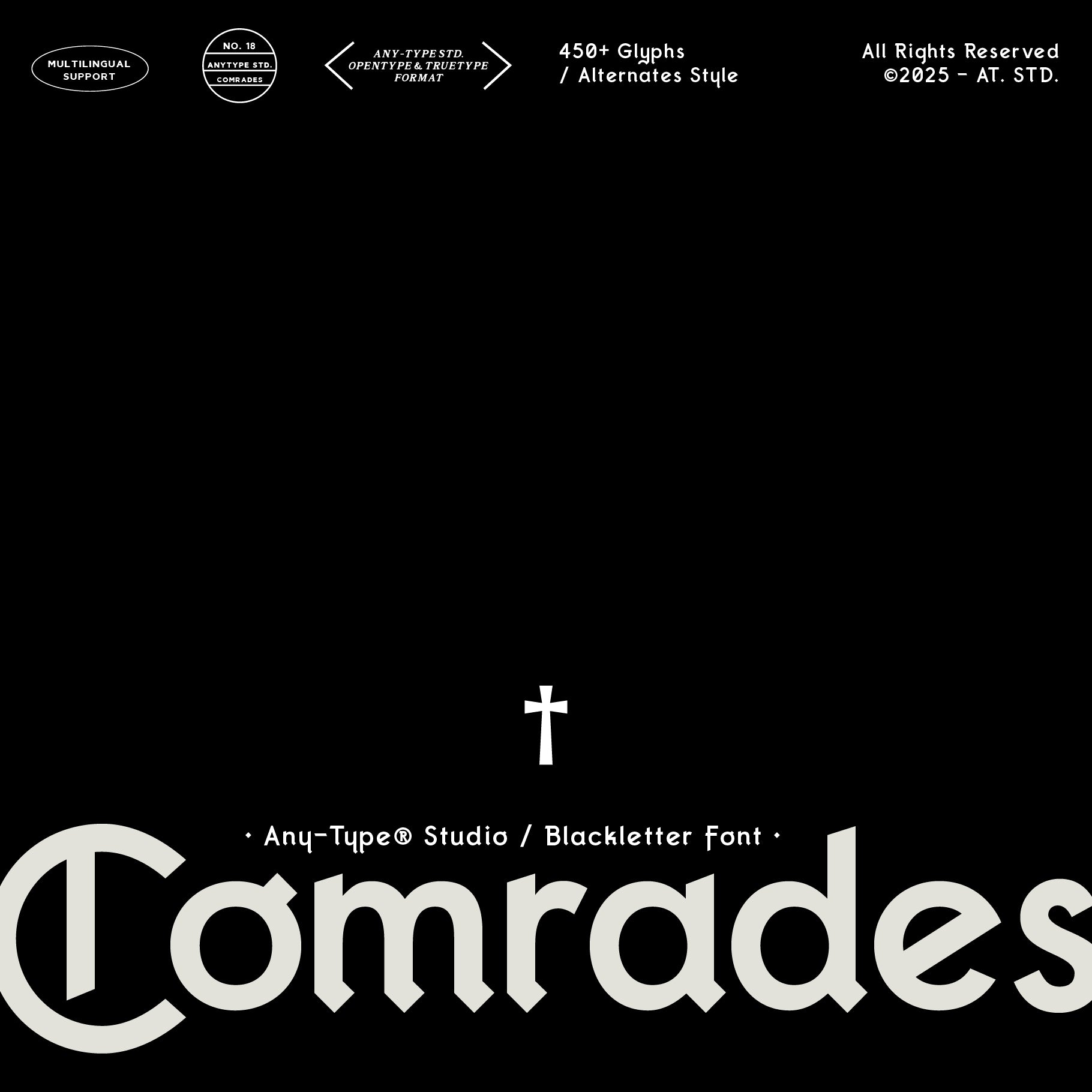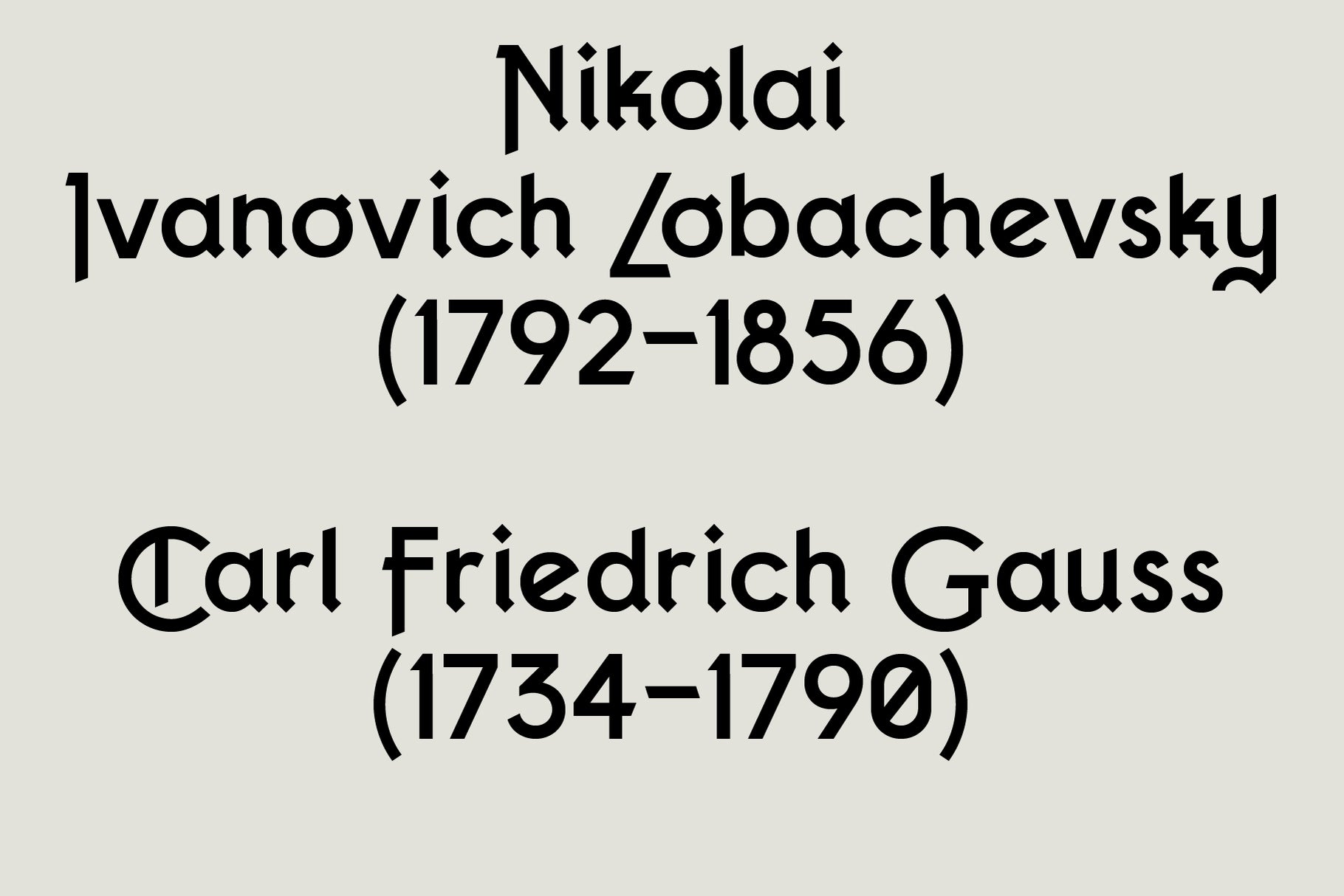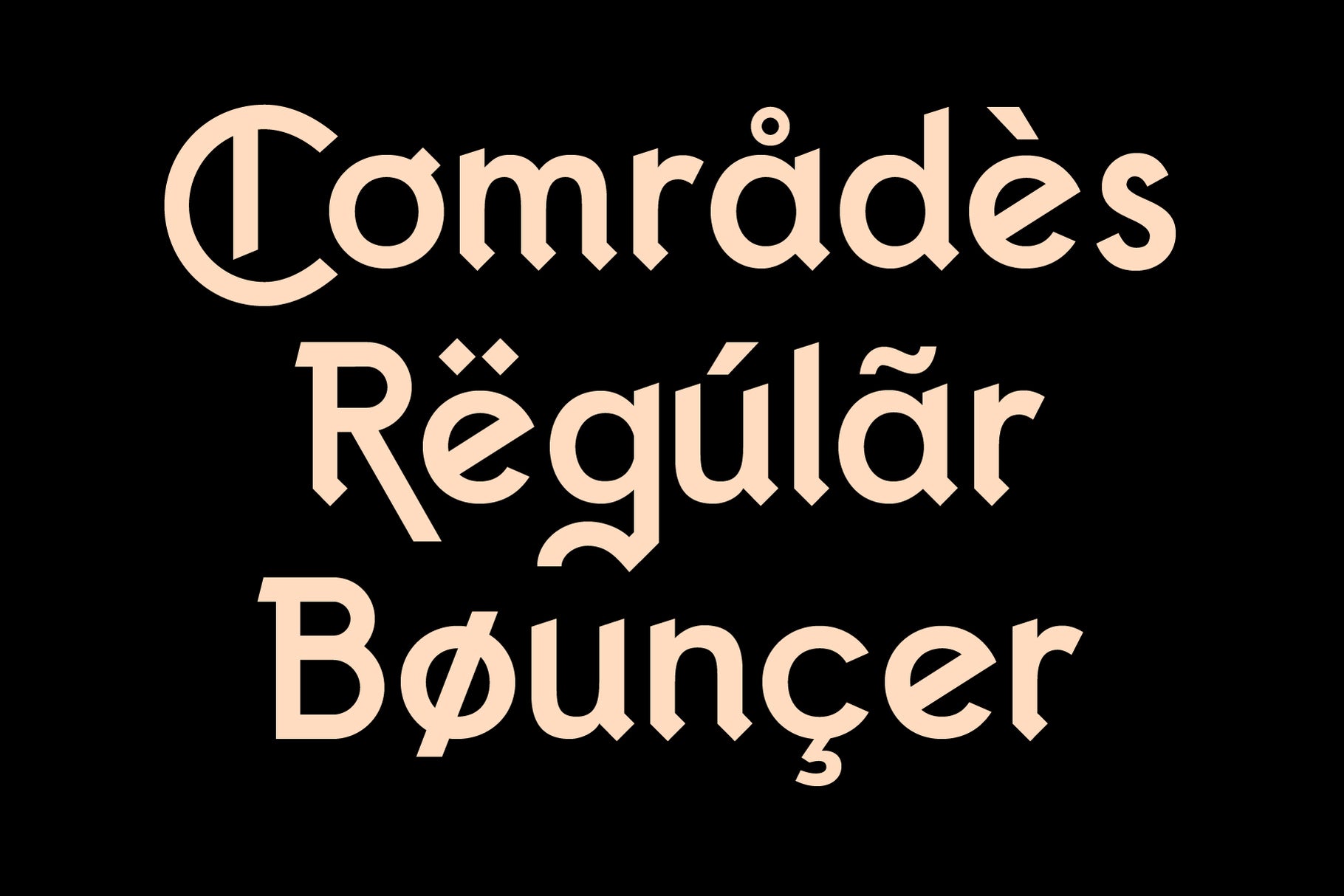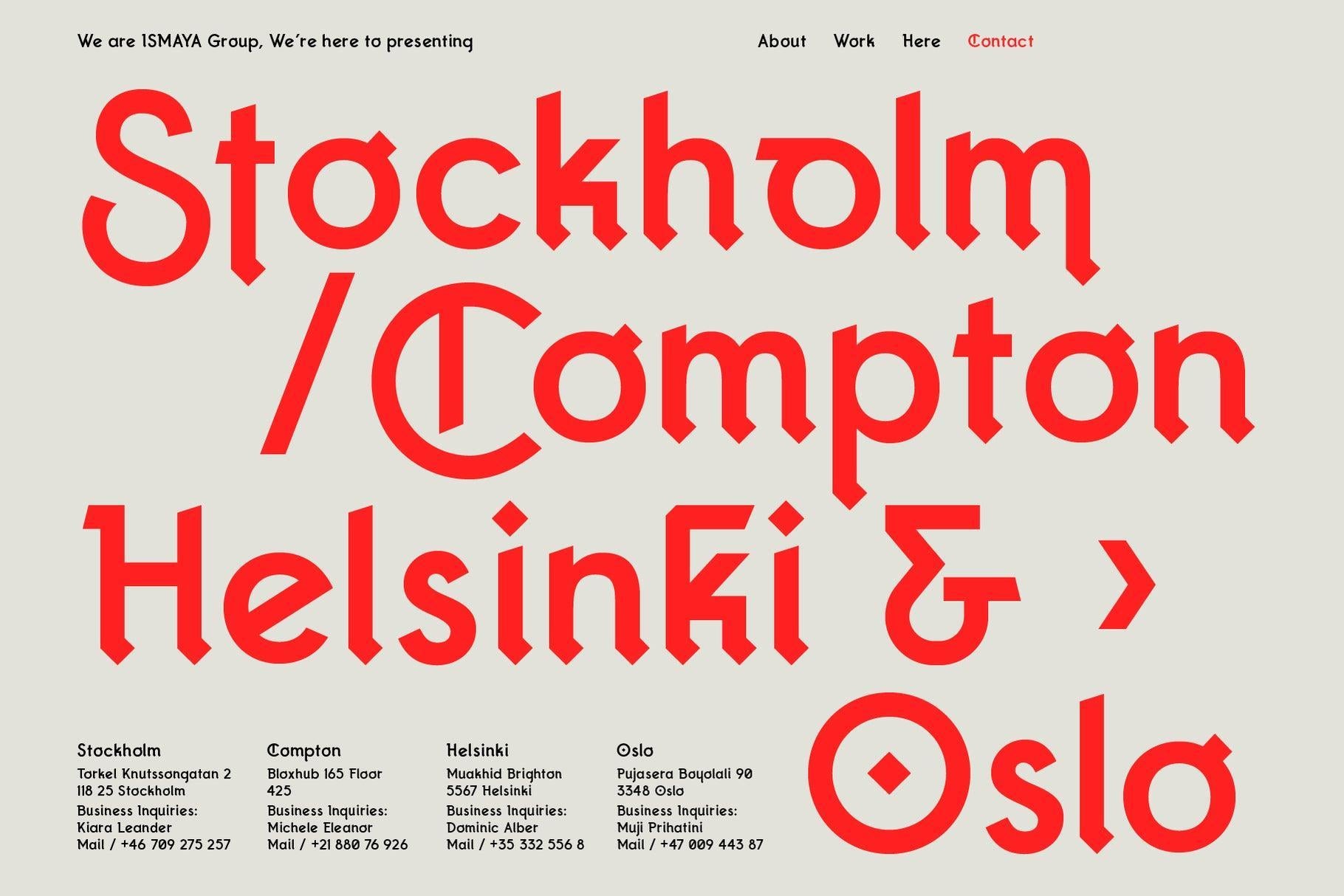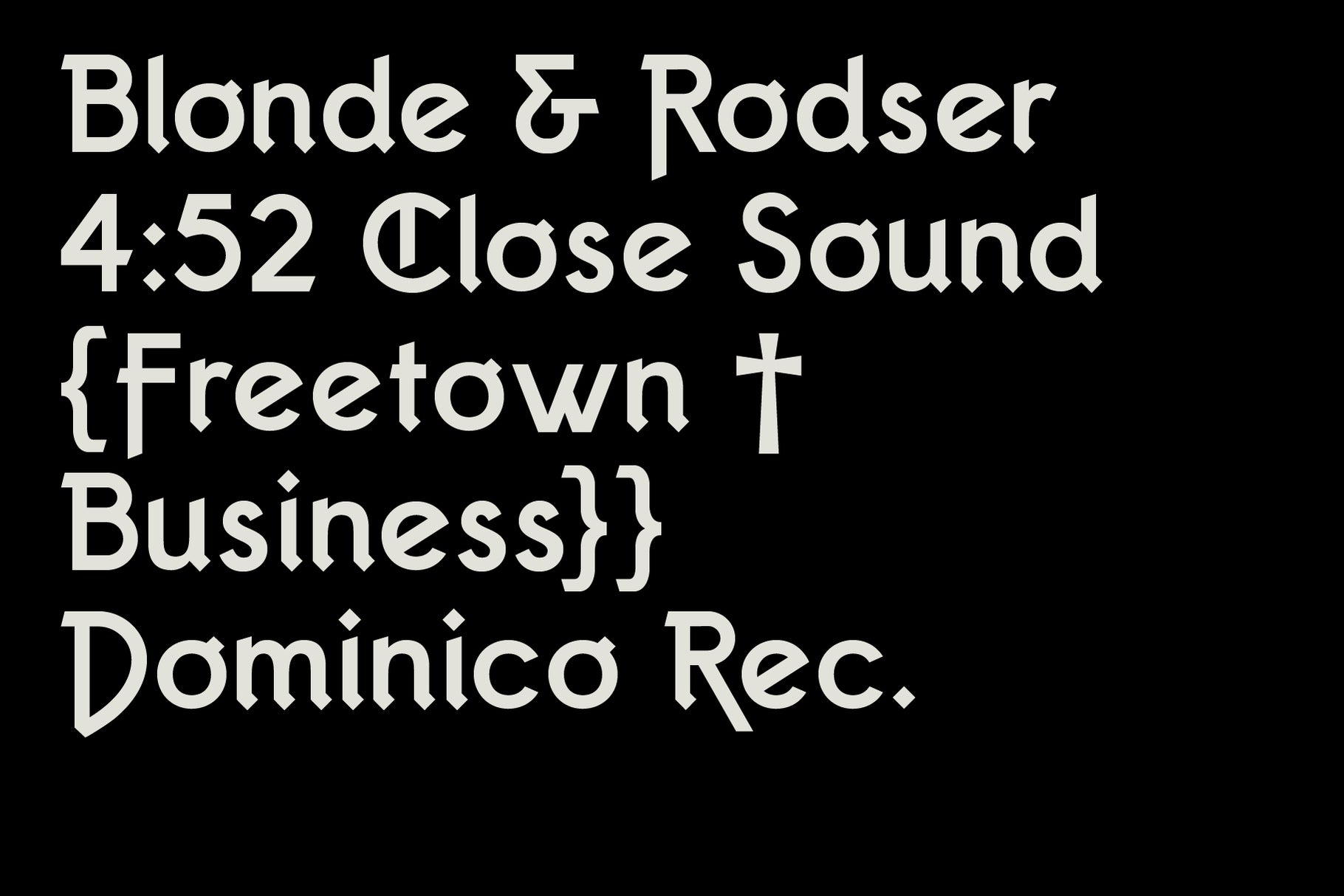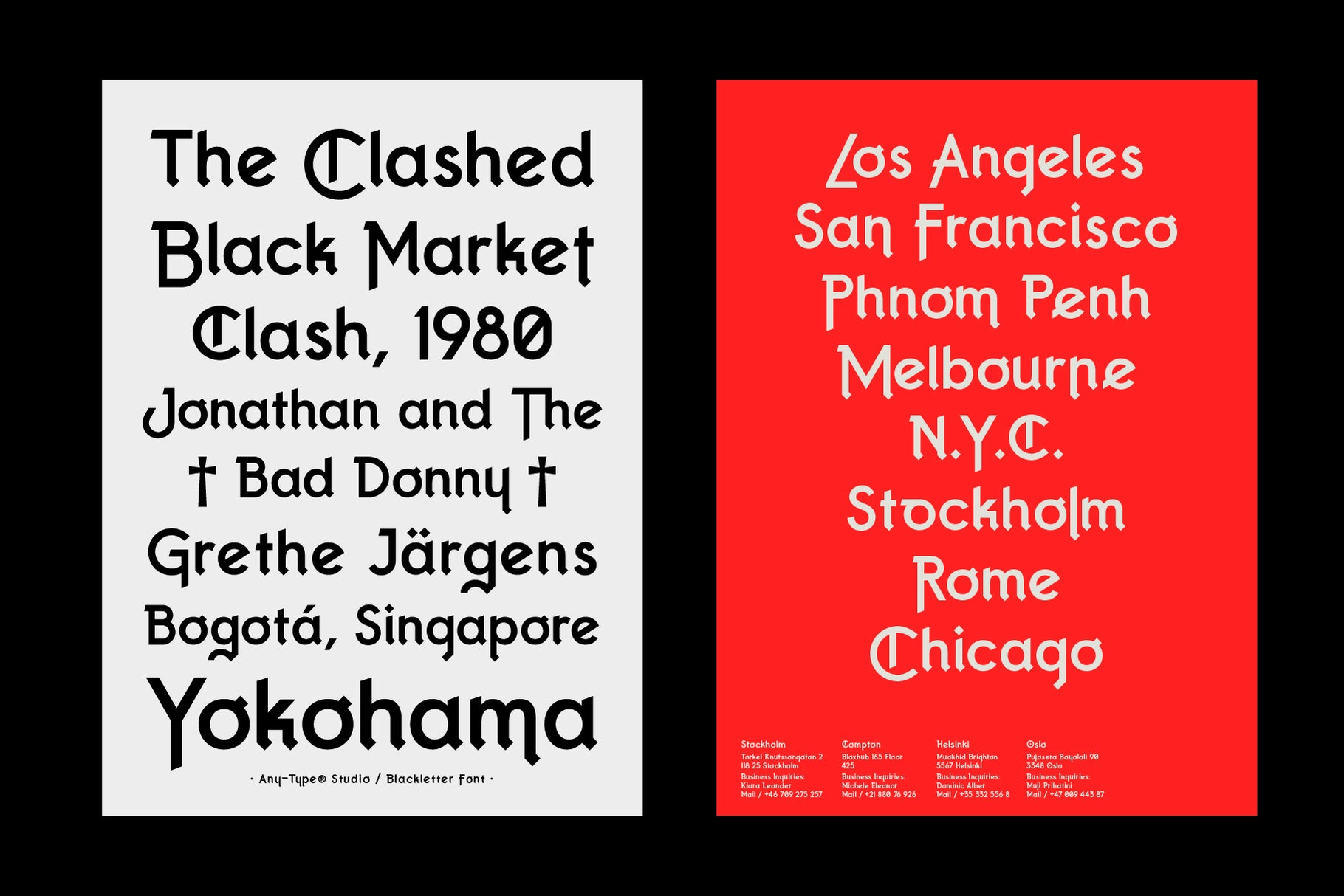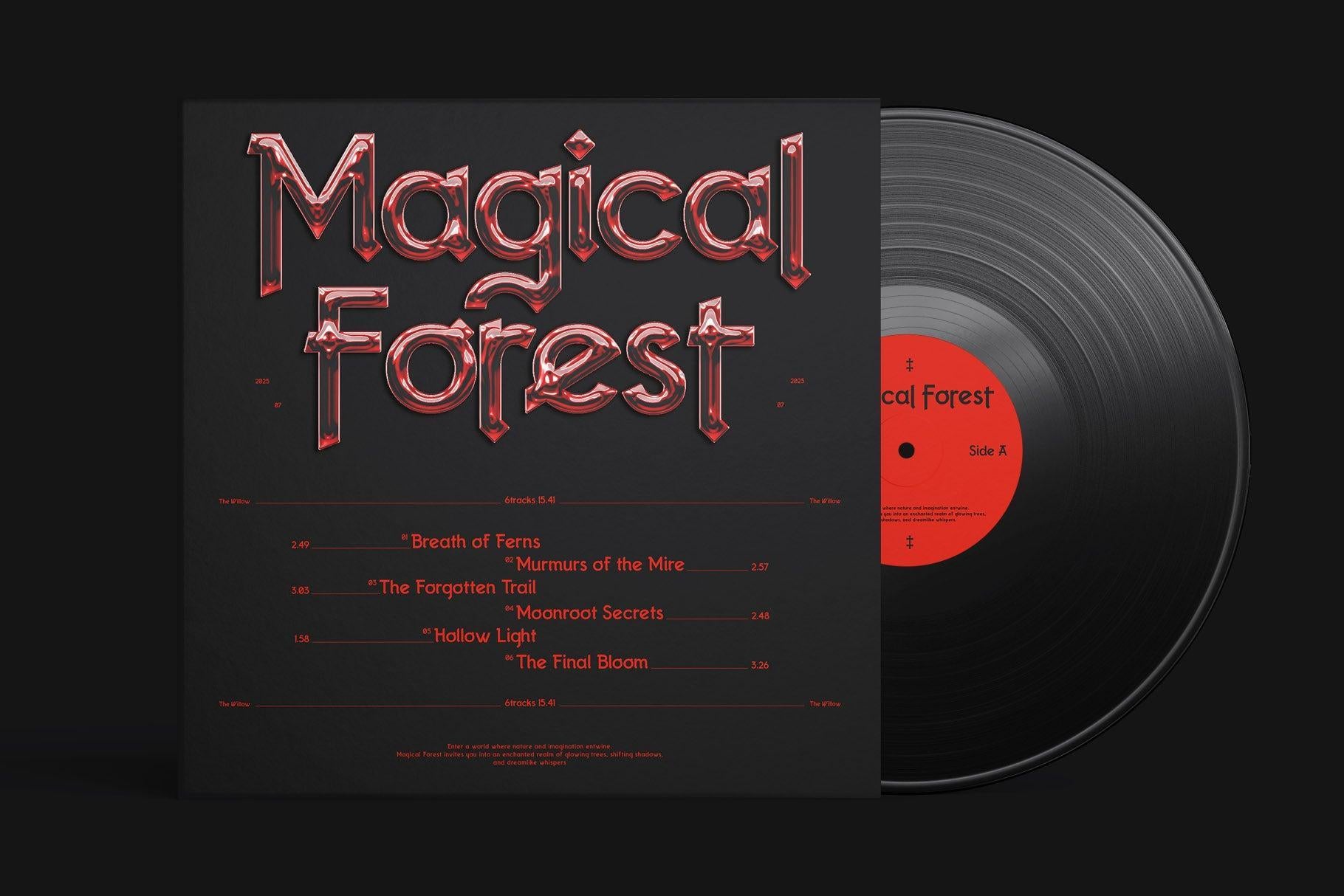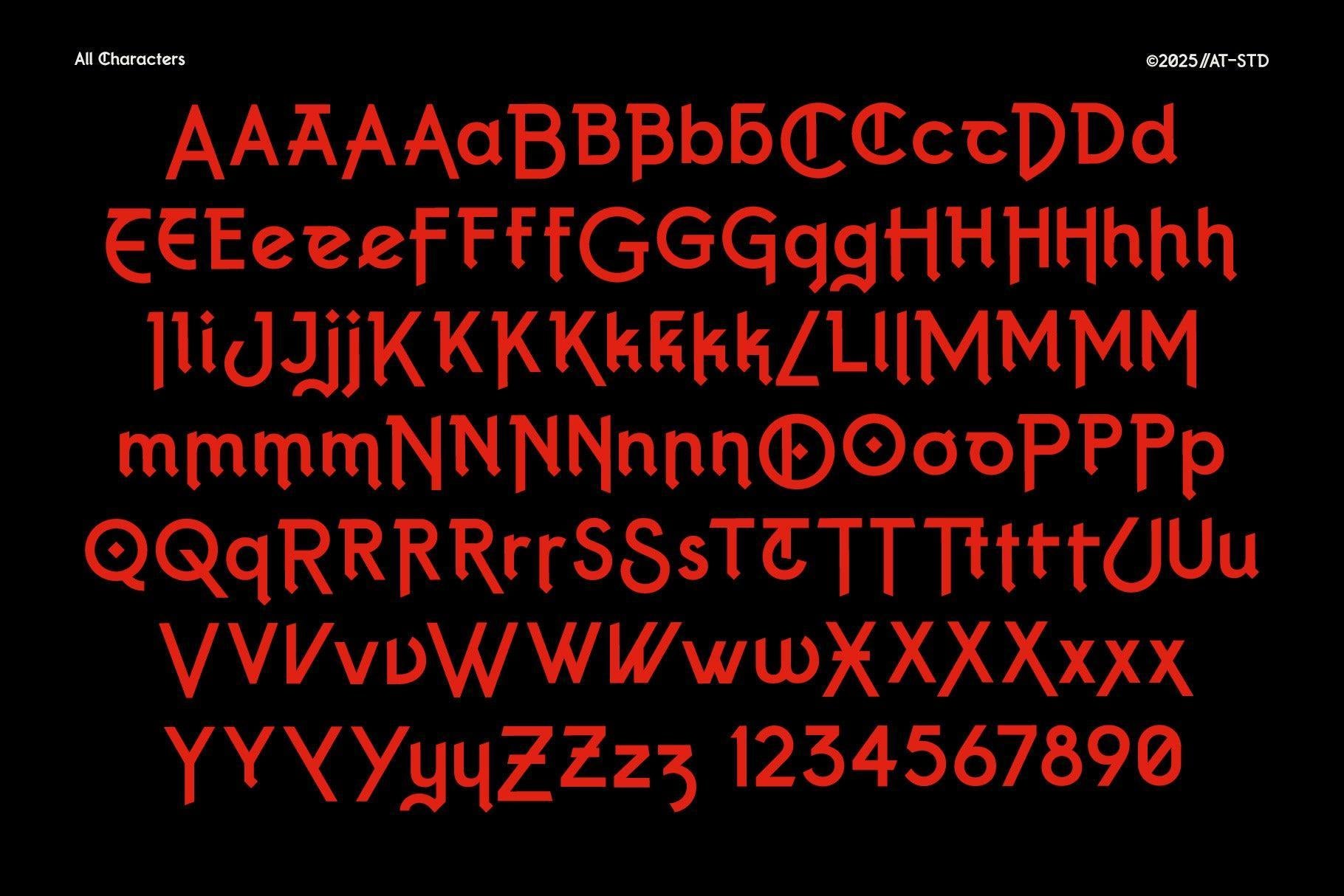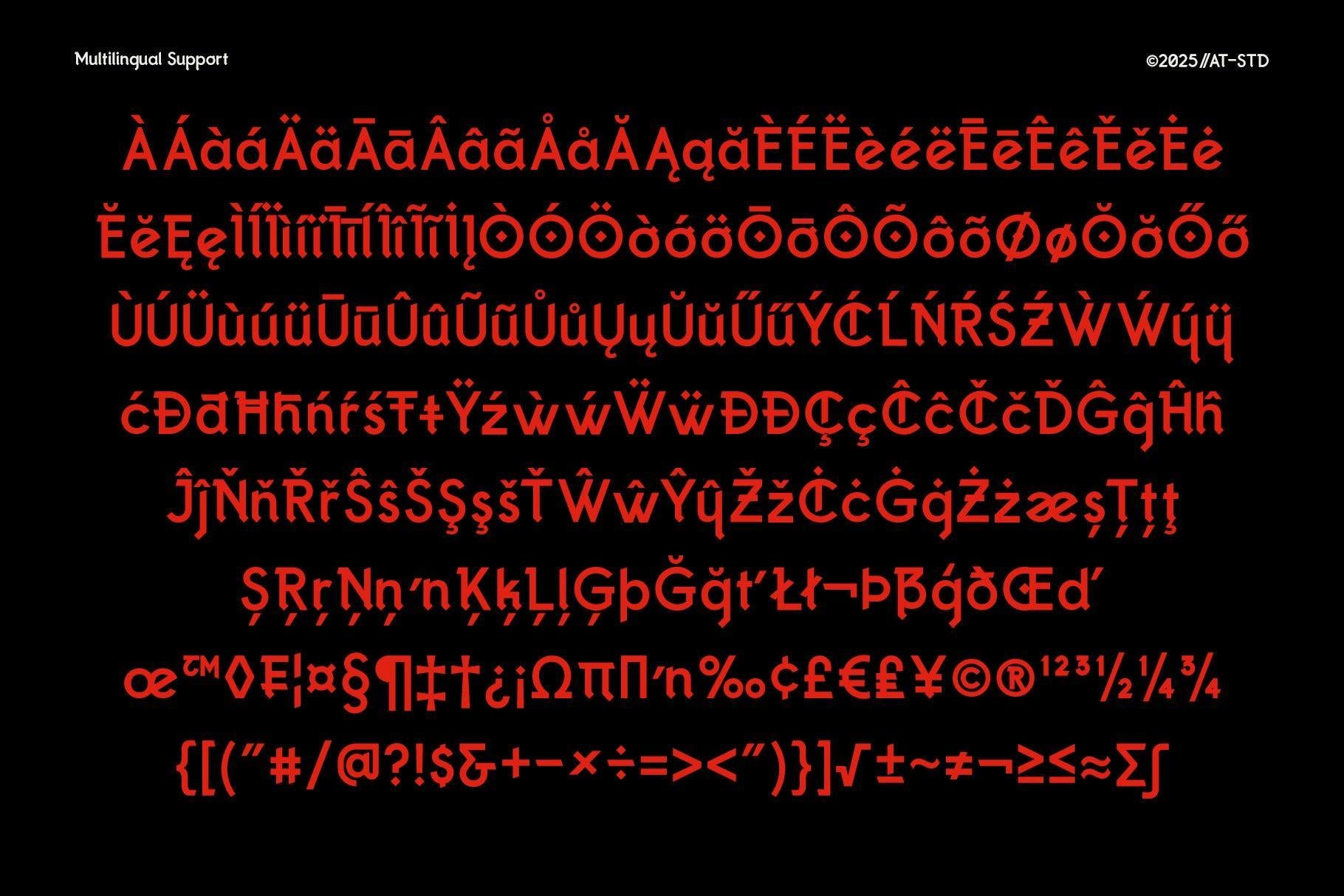
Comrades - A Bold Blackletter-Inspired Display Font
Comrades is a bold blackletter-inspired display font designed by Any-Type Studio, featuring geometric precision and sharp edges combined with smooth, rounded elements for enhanced legibility. It includes multilingual support, alternate characters for creative flexibility, and over 450 glyphs, making it suitable for a wide range of design applications.